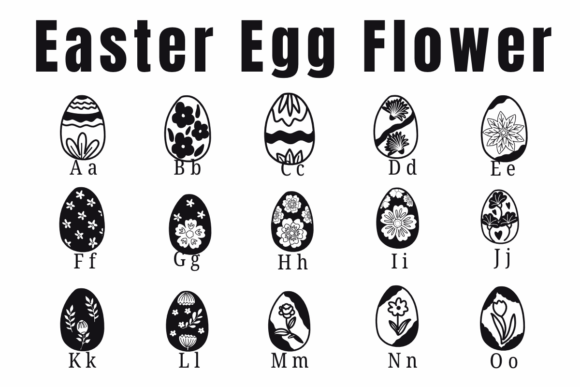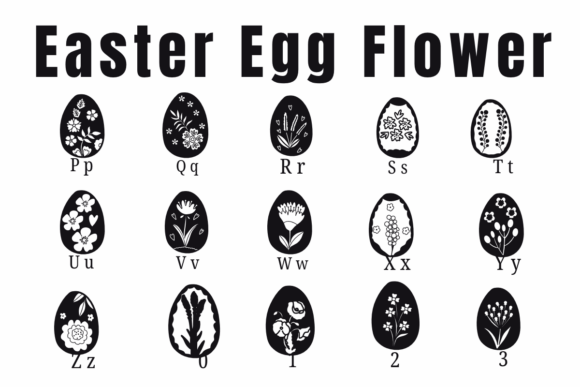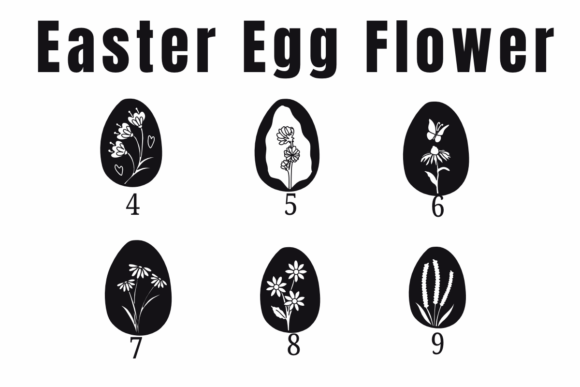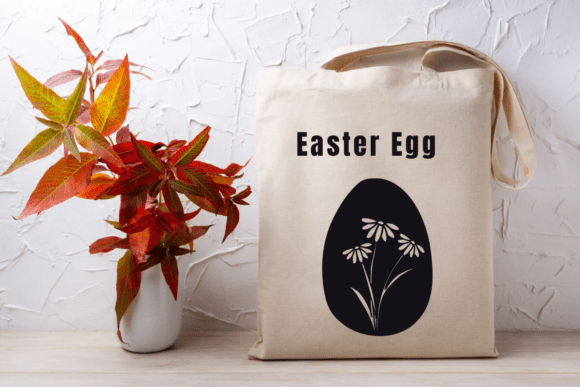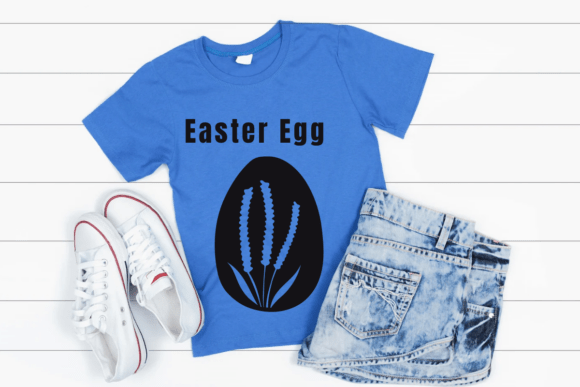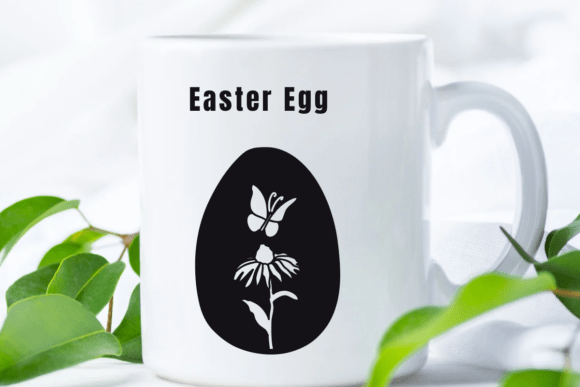
Introduction to Easter Egg Flower Font
Easter Egg Flower is a dingbats font with theme with a sketch style.
This font can enhance your creative projects such as wedding invitations, DIY, crafts, decorations, logos, and many other creative ideas .
Key Features of Easter Egg Flower Font